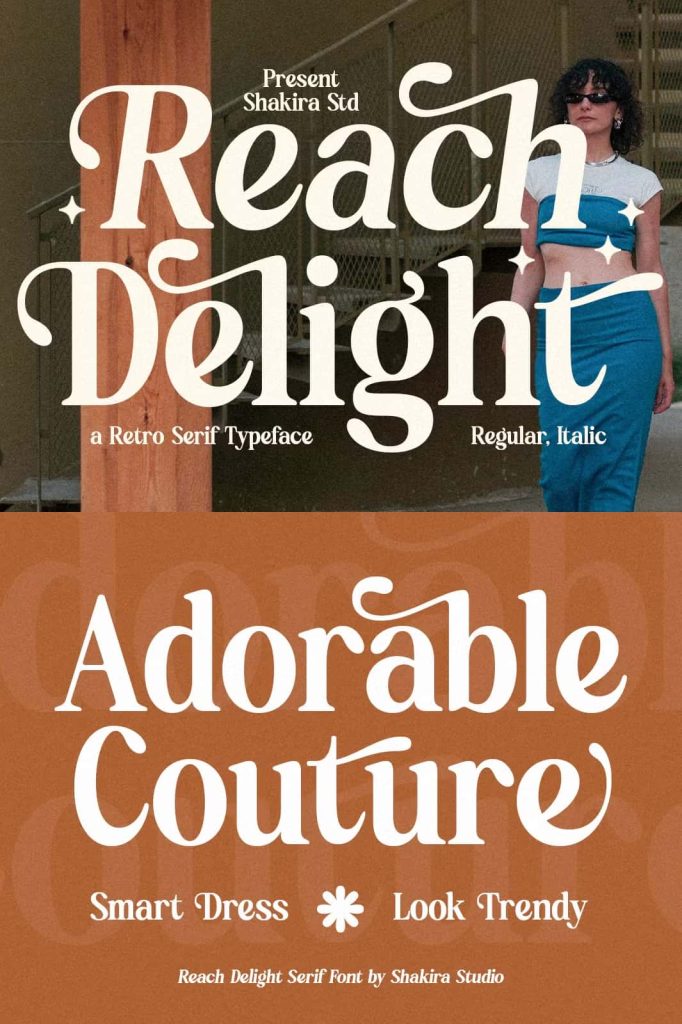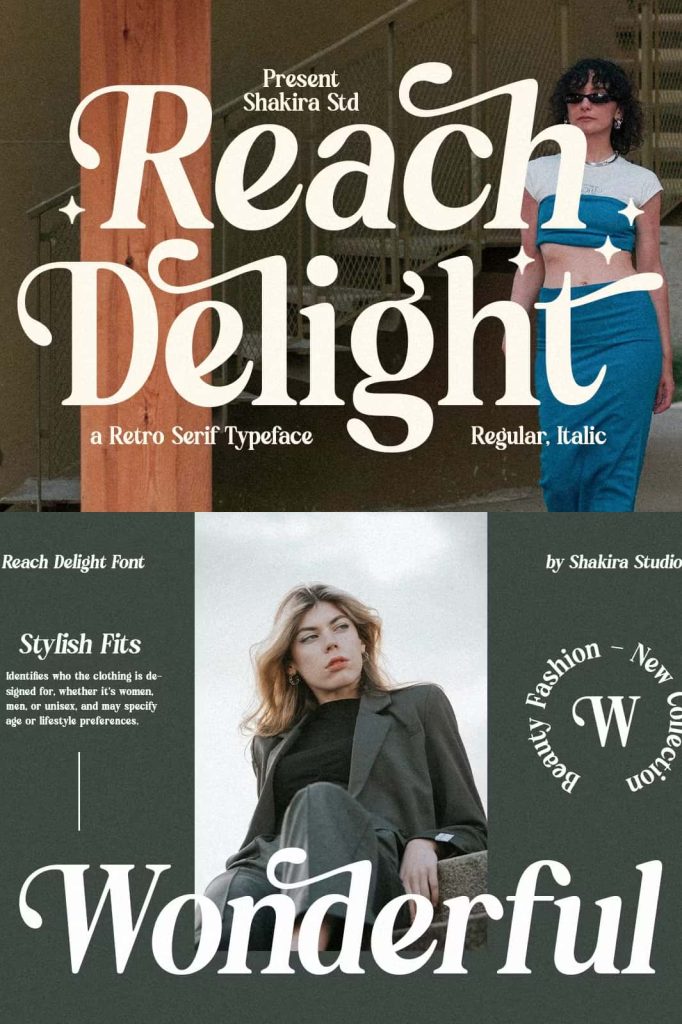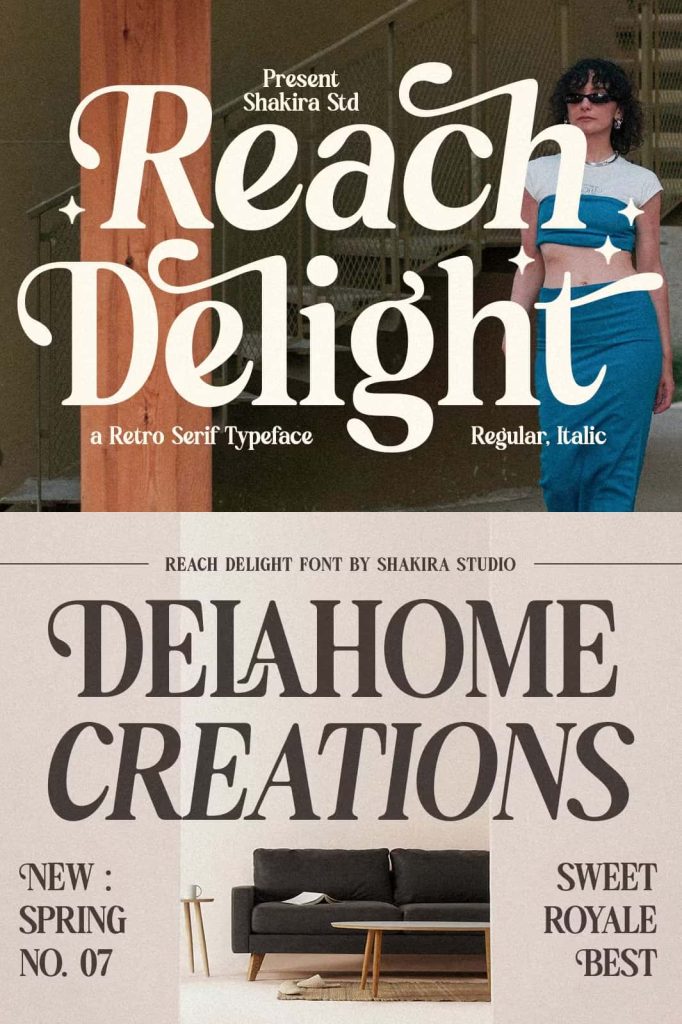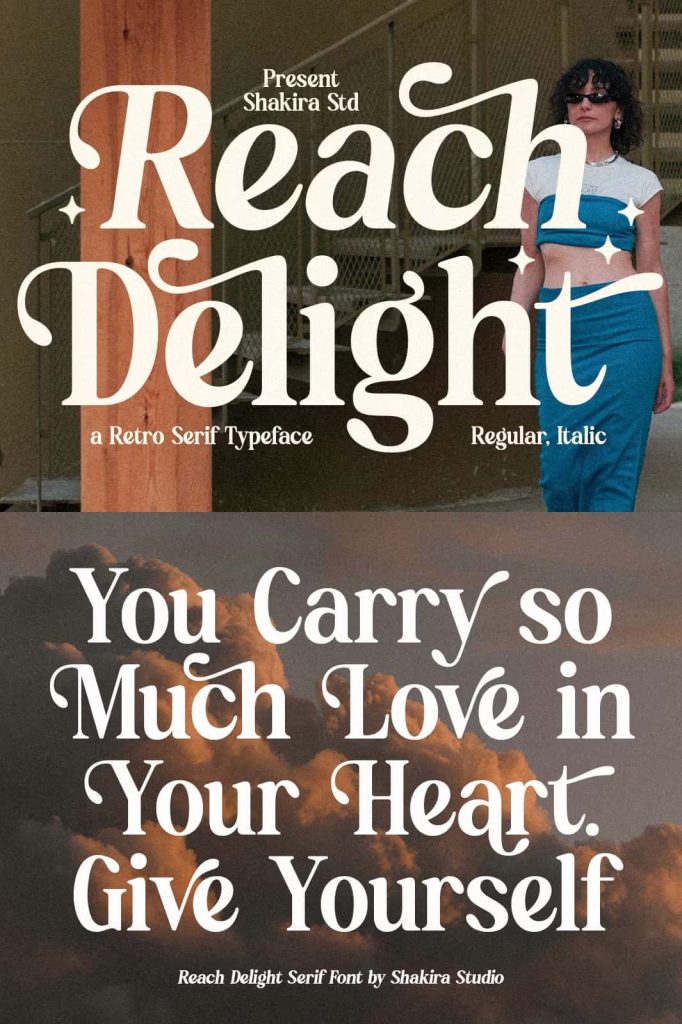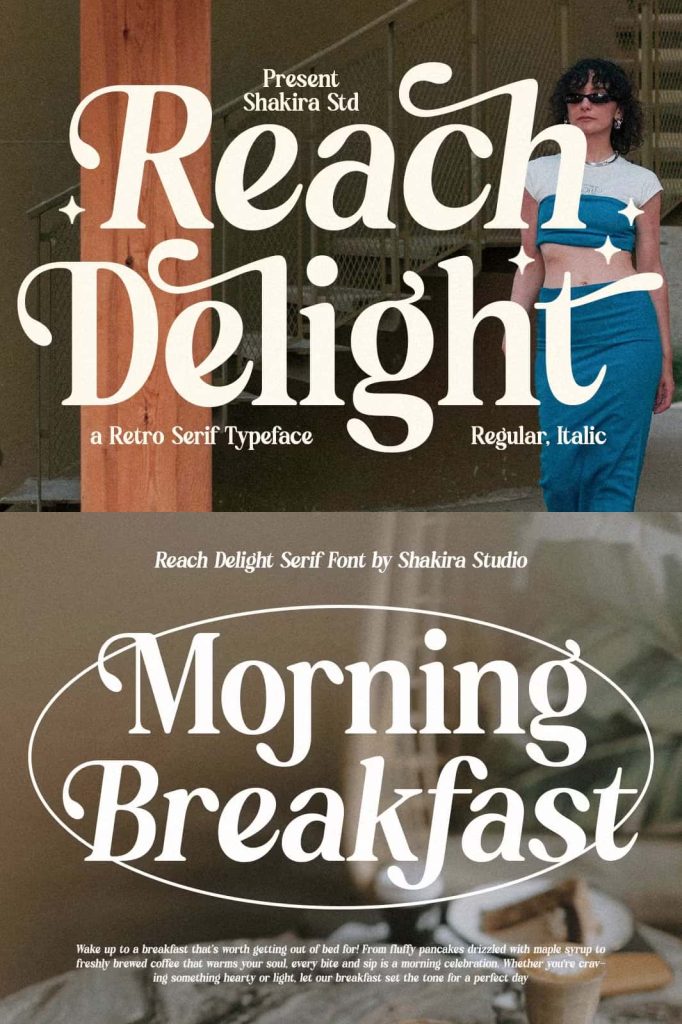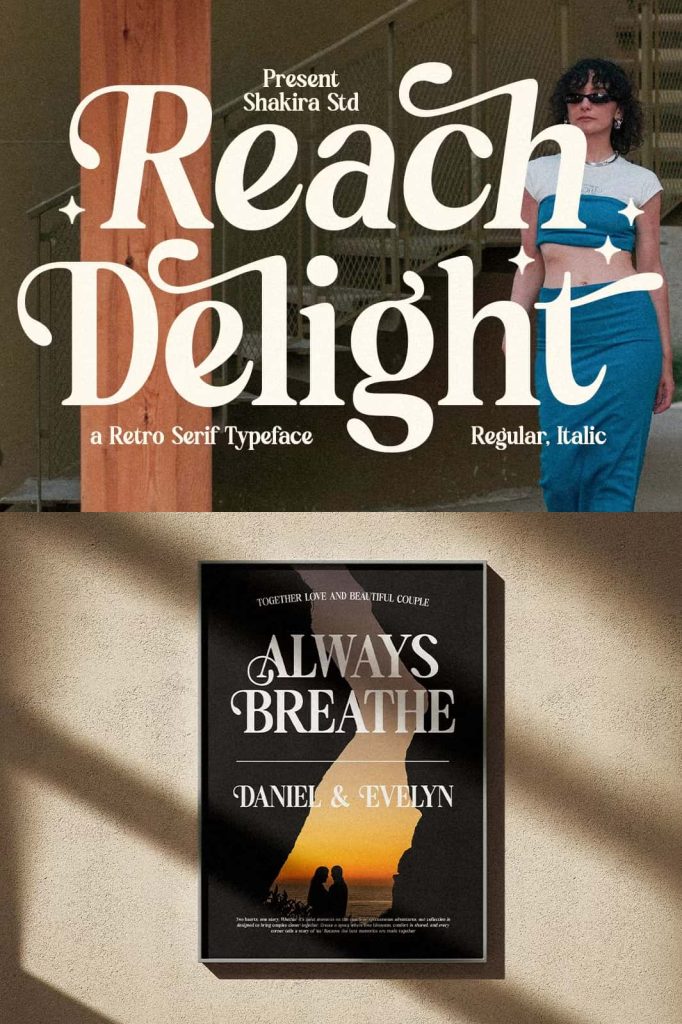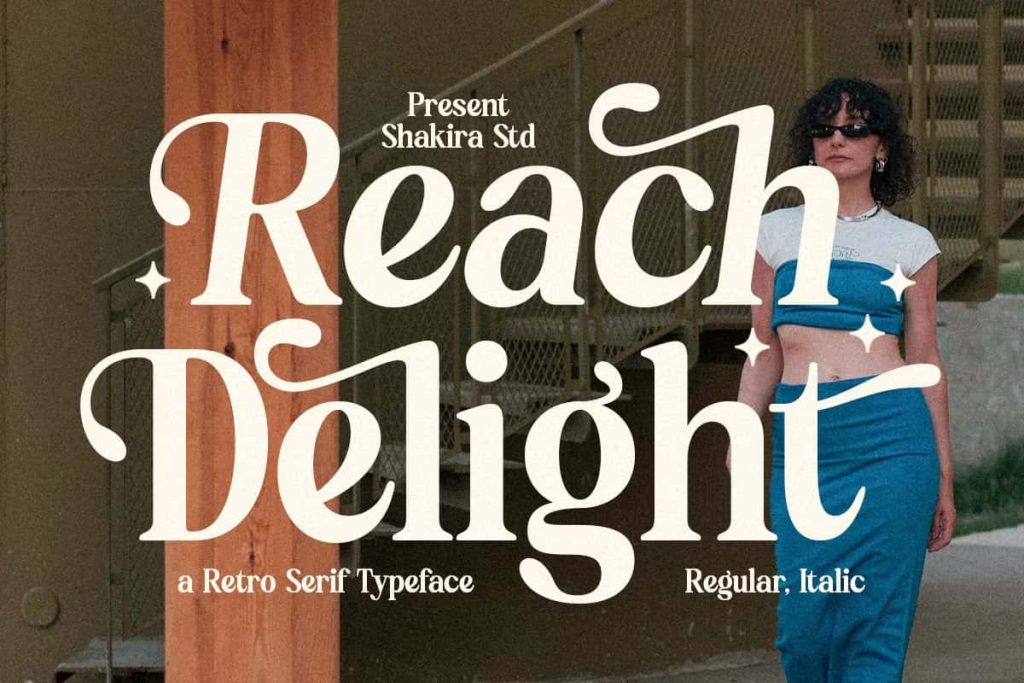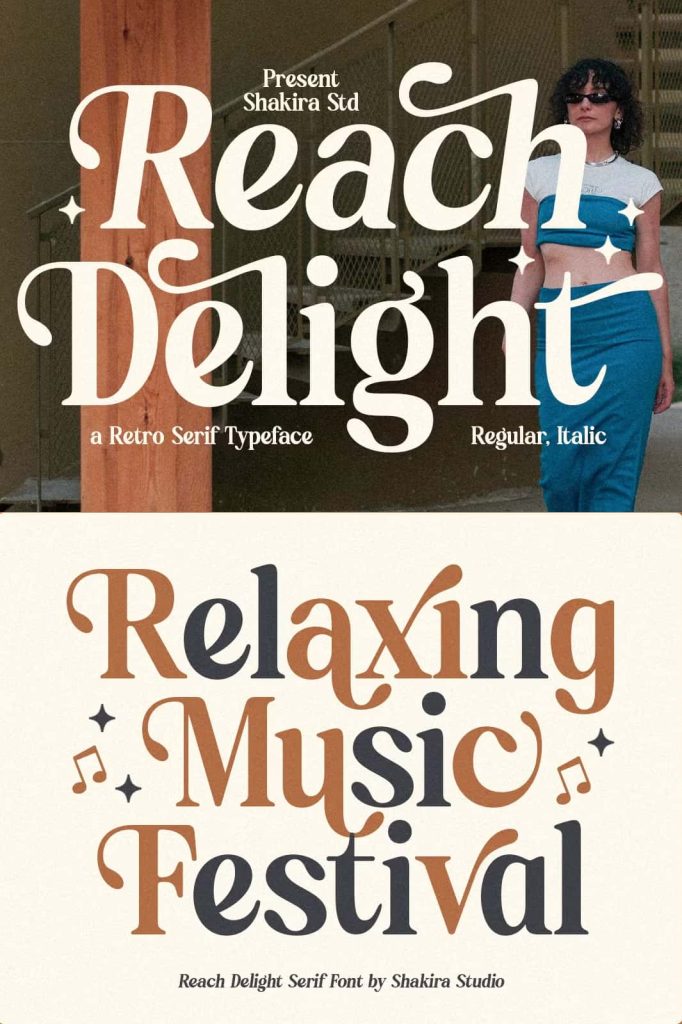
“Introducing ‘Reach Delight,’ a modern retro serif display font that brings a vintage flair to your contemporary designs. Featuring both Regular and Italic styles, this font comes packed with stylish alternates and ligatures, allowing endless creative possibilities. Whether you’re working on bold branding, editorial projects, or social media graphics, ‘Reach Delight’ offers timeless charm and versatility.